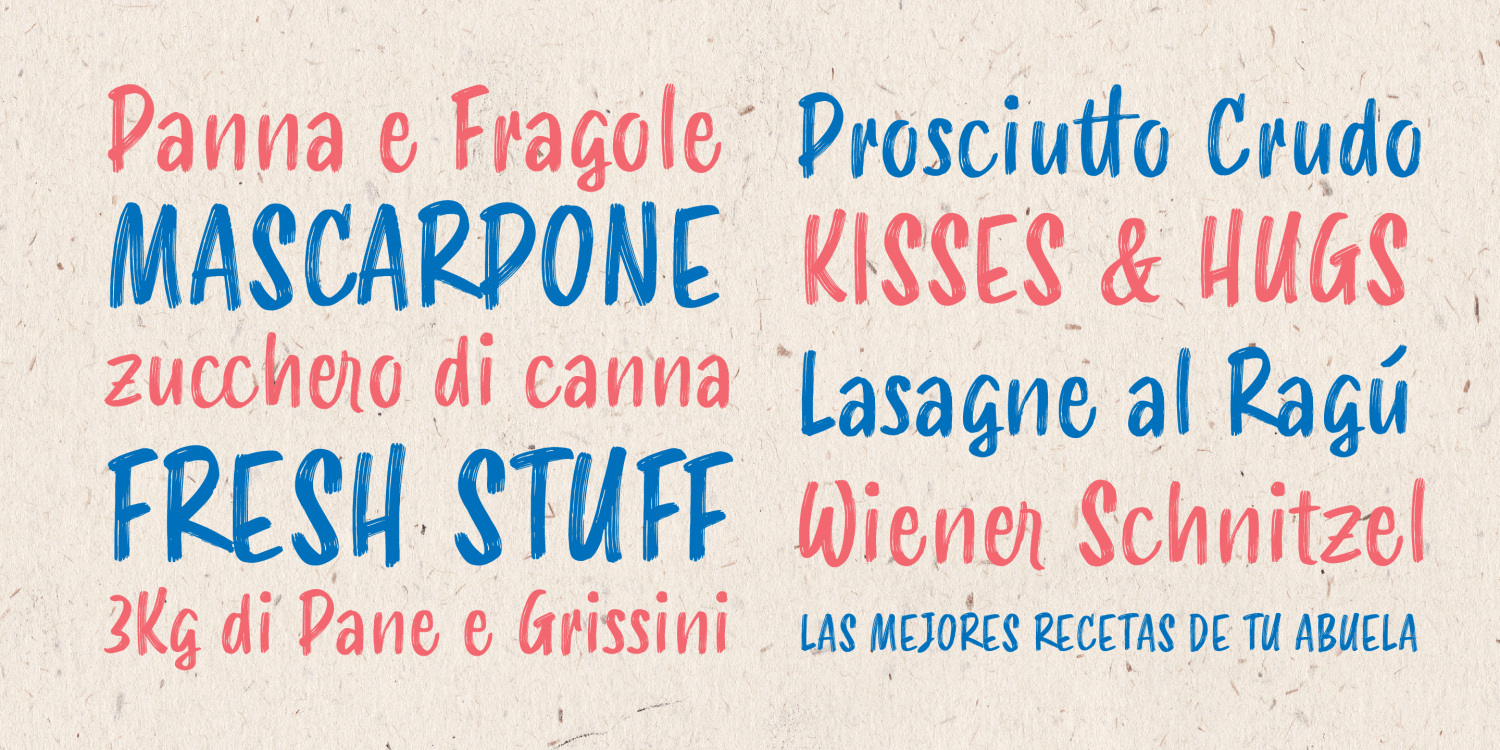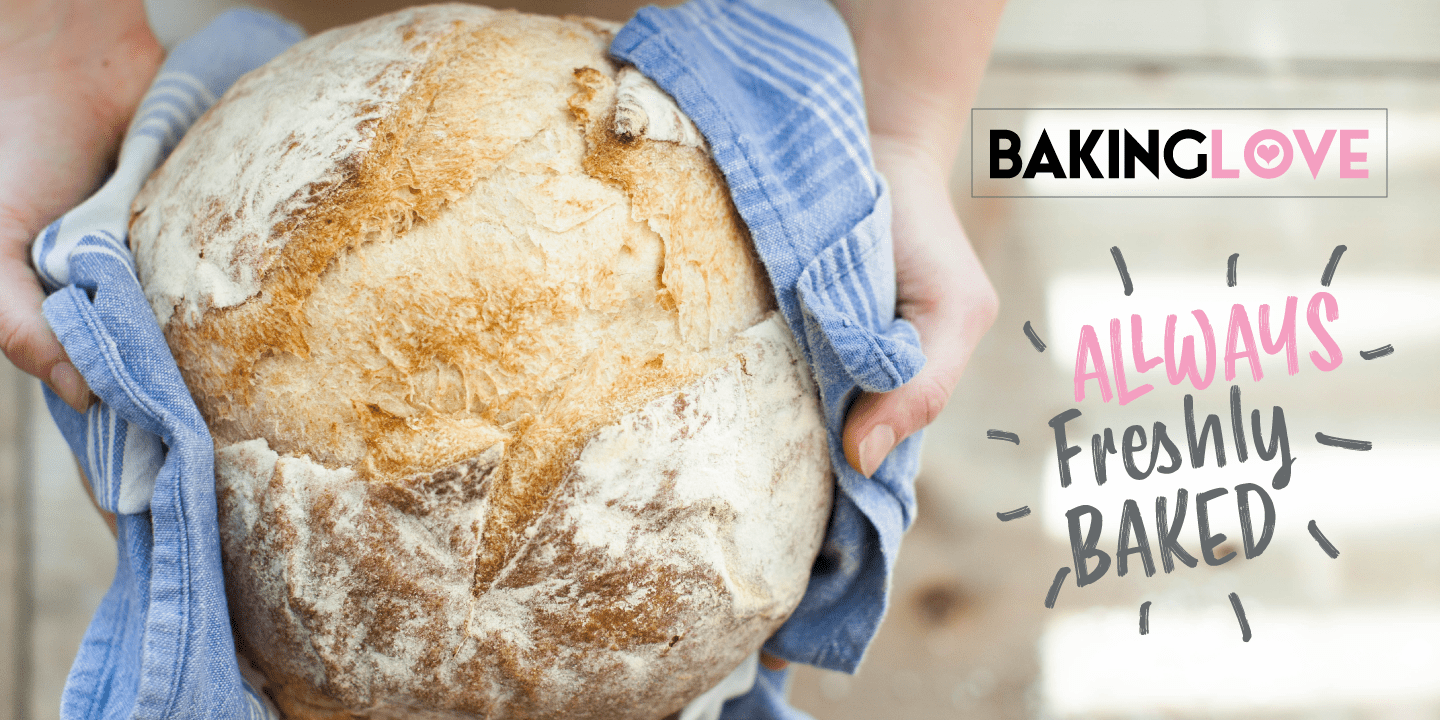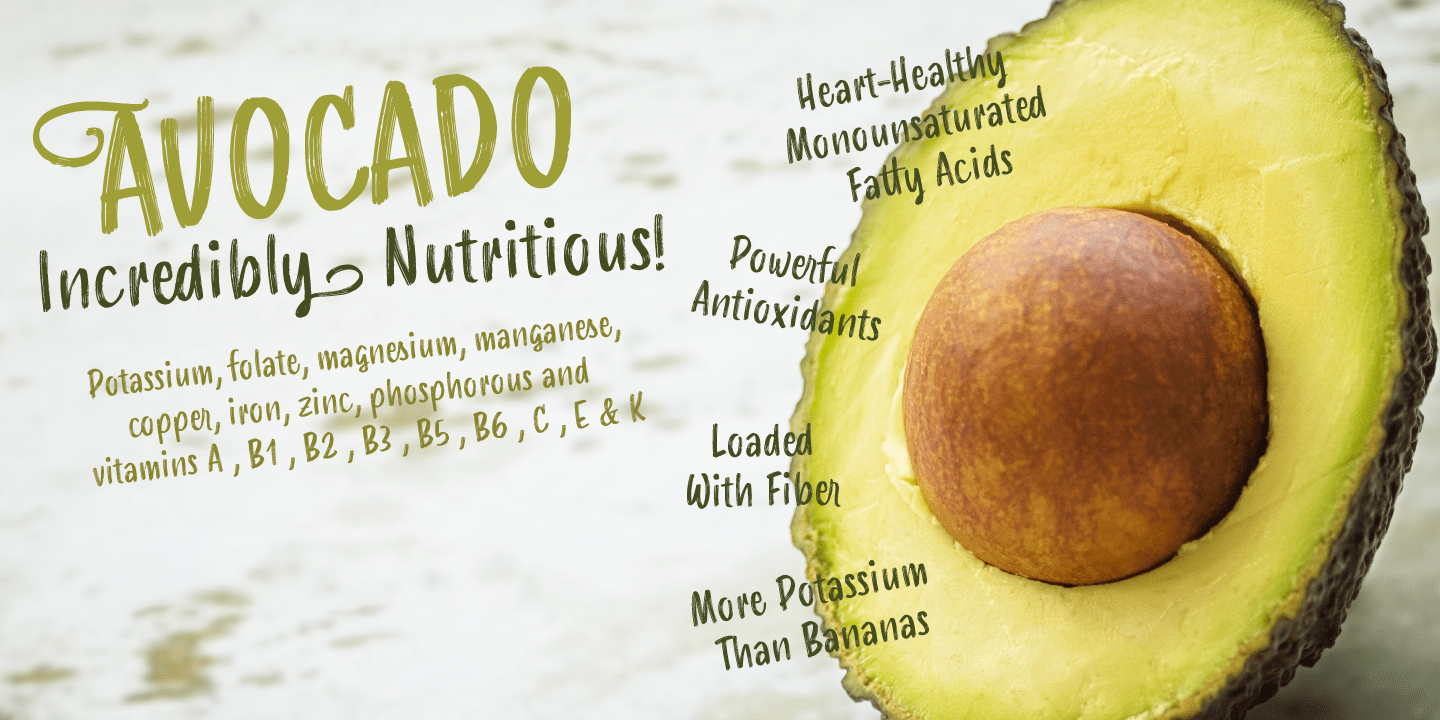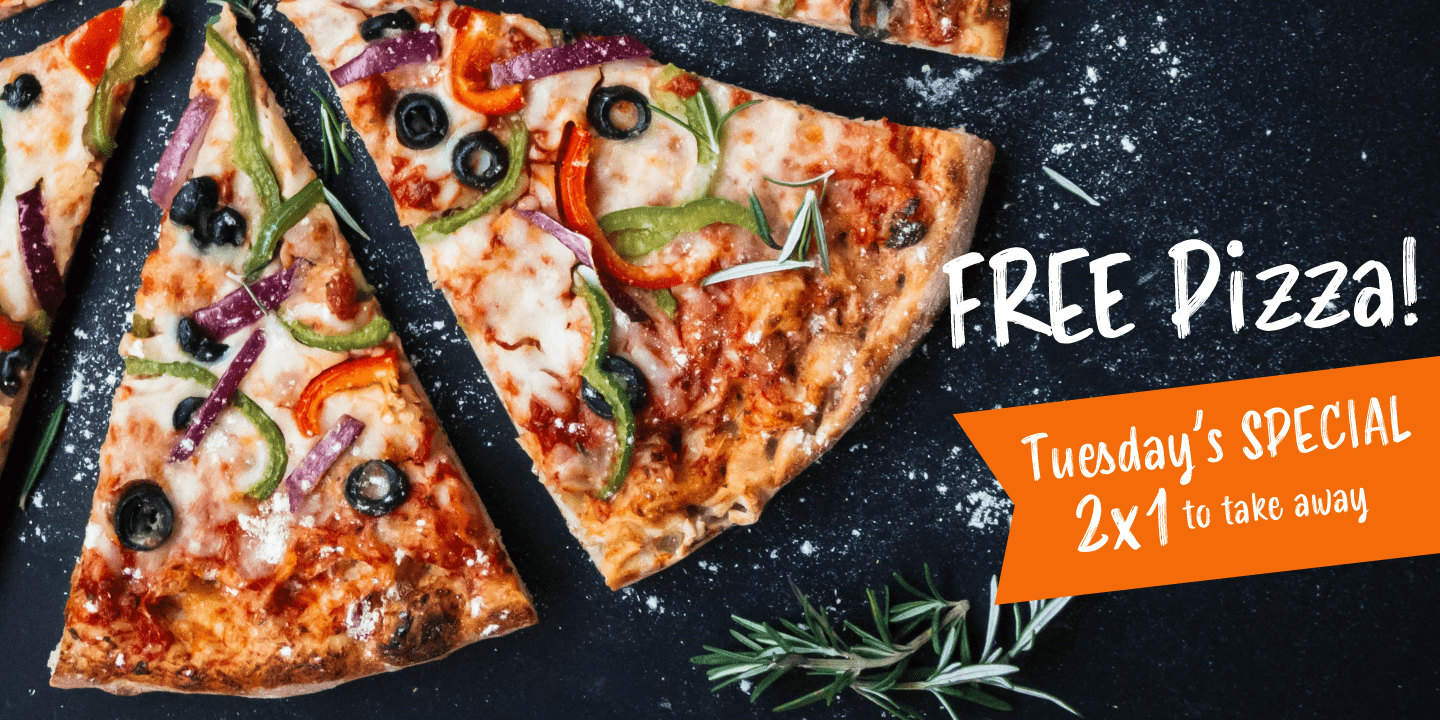
About Smoothy
Hello Smoothy – brush script with attitude! This font is the perfect mix between freshy and serious. Urban, modern, handwritten, sign painting inspired, Smoothy is perfect for various occasions. Wedding invitations, T-shirts or cards, Instagram posts,…